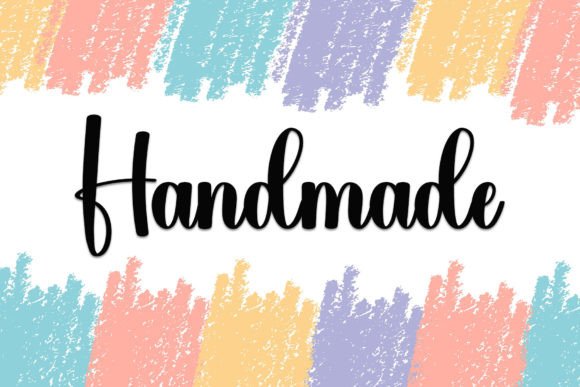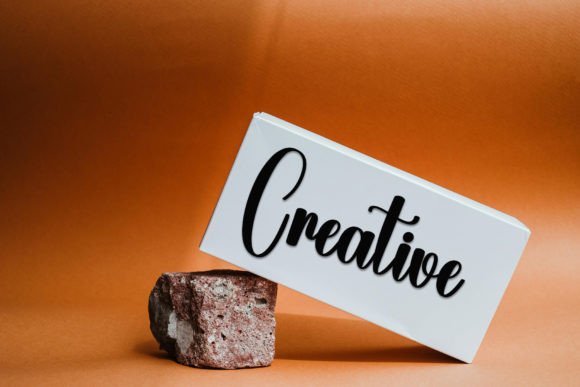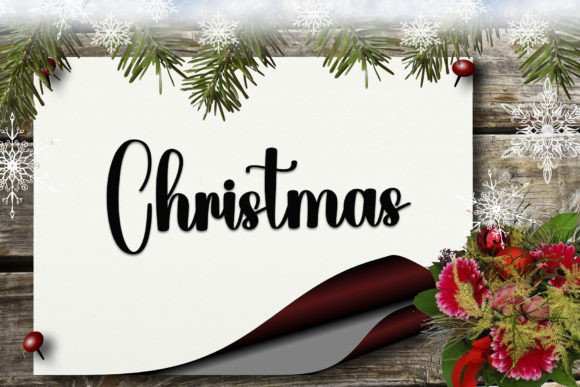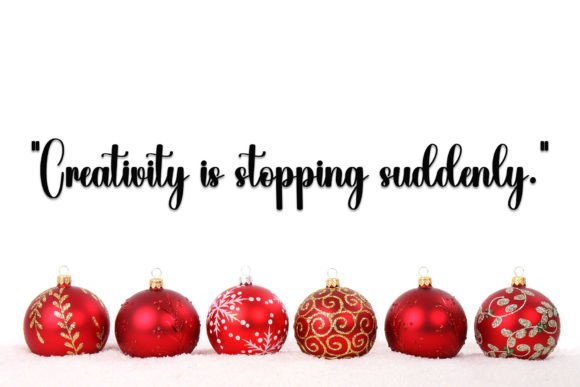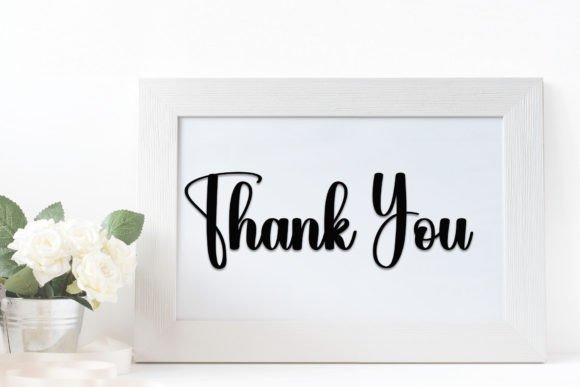
Hallow Font: Elevate Your Designs with Elegance and Sophistication
In the world of typography, fonts play a crucial role in conveying the tone and personality of a design. For designers and crafters seeking to add a touch of elegance and class to their projects, Hallow Font is an excellent choice. This trendy handwritten font boasts a contemporary atmosphere and impeccable form, drawing inspiration from timeless classic calligraphy.
The Inspiration Behind Hallow Font
Hallow Font is a masterful blend of traditional calligraphy and modern design sensibilities. Its creators sought to craft a font that would evoke the sophistication and refinement of classic calligraphy, while still feeling fresh and contemporary. The result is a font that is both nostalgic and forward-thinking, perfect for designers looking to add a touch of luxury to their work.
Key Features of Hallow Font
• Handwritten Elegance: Hallow Font features beautiful, flowing script strokes that give it a distinctly handwritten feel.
• Contemporary Atmosphere: Despite its classic inspiration, Hallow Font has a distinctly modern vibe that will appeal to designers seeking a fresh look.
• Impeccable Form: Each letterform has been carefully crafted to ensure perfect proportions and balance, making it a joy to use in a variety of design applications.
• Timeless Appeal: Hallow Font’s classic inspiration ensures that it will remain a stylish choice for years to come, rather than feeling trendy or dated.
Uses for Hallow Font
Hallow Font’s versatility makes it suitable for a wide range of design projects, including:
• Logos and Branding: Add a touch of elegance to your brand identity with Hallow Font’s sophisticated script.
• Wedding and Event Design: Create beautiful wedding invitations, menus, and other event materials with Hallow Font’s romantic, handwritten feel.
• Packaging and Product Design: Elevate your product packaging with Hallow Font’s luxurious, high-end aesthetic.
• Digital and Print Media: Use Hallow Font in digital and print media, such as magazines, brochures, and social media graphics, to add a touch of sophistication.
Why Choose Hallow Font?
With so many fonts available, why choose Hallow Font for your design projects? Here are just a few compelling reasons:
• Unique Style: Hallow Font offers a distinctive, stylish alternative to more traditional fonts.
• Ease of Use: Hallow Font is easy to read and works well in a variety of sizes, making it a practical choice for designers.
• High-Quality Design: Hallow Font has been carefully crafted to ensure that it meets the highest standards of design and typography.
In conclusion, Hallow Font is an exceptional choice for designers and crafters seeking to add elegance and sophistication to their projects. Its unique blend of classic inspiration and modern style makes it a versatile and stylish font that will elevate any design. Whether you’re working on a logo, wedding invitation, or packaging design, Hallow Font is sure to impress.